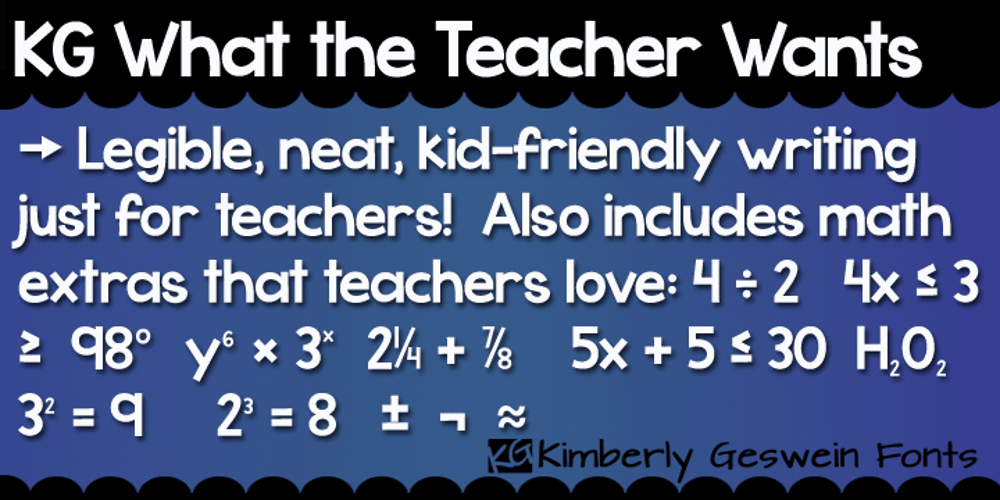
KG What The Teacher Wants Font Family was designed by Kimberly Geswein and published by Kimberly Geswein. KG What The Teacher Wants contains 1 styles and family package options. I’ve worked together with the fabulous Rachelle Smith of What the Teacher Wants to come up with a new kid-friendly, teacher-friendly font. Rachelle’s highly-popular teaching blog, What the Teacher Wants (http://whattheteacherwants.blogspot.com/) is a great resource for elementary teachers. She also sells educational products at Teachers Pay Teachers: http://www.teacherspayteachers.com/Store/Rachelle-Smith This font is exactly “What the Teacher Wants”- it is neat, legible, friendly, and contains enough glyphs to cover 86 languages and little extras like math symbols!